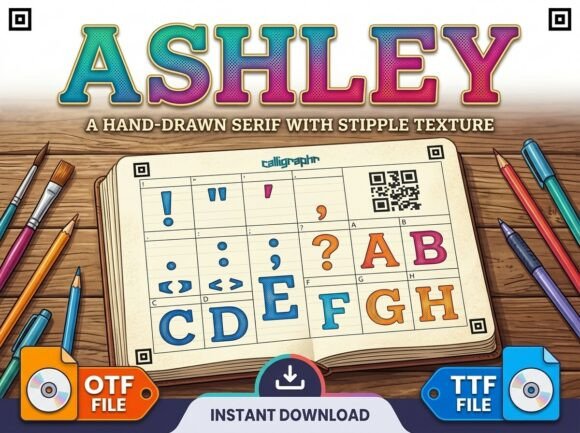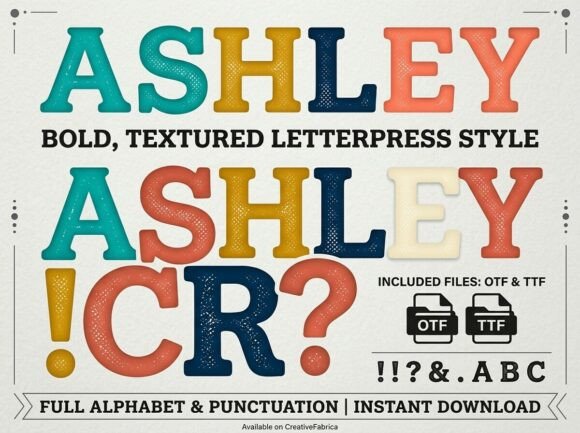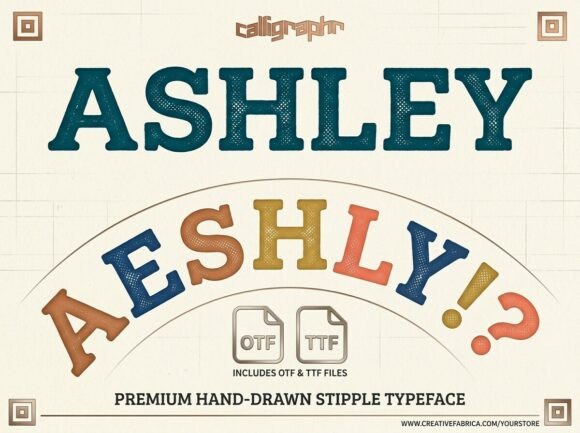
Ashley Font: Elevate Your Designs with a Stunning Decorative Display Font
In the world of typography, a font can make or break a design. If you’re a creator looking to make a statement, Ashley Font is here to revolutionize your visual projects. This decorative display font is crafted to grab attention, featuring unique artistic elements and a strong visual personality that sets it apart from the ordinary.
Unleash Your Creativity with Ashley Font
Ashley Font is perfect for designers, crafters, and artists who want to add a touch of elegance and sophistication to their work. With its intricate details and creative letterforms, this font is ideal for high-impact designs where typography takes center stage. Whether you’re designing a modern poster, a unique brand identity, or eye-catching social media content, Ashley Font adds an instant “wow” factor to any project.
This versatile font can be used in a variety of design applications, including:
• Poster Design: Create headlines that people can’t look away from. Ashley Font’s bold and artistic style makes it perfect for posters, flyers, and brochures.
• Branding & Logos: Build a unique identity for creative businesses. This font is ideal for logos, business cards, and letterheads.
• Apparel & Merch: Perfect for T-shirts, hoodies, tote bag designs, and other merchandise.
• Social Media: Make your quotes and announcements stand out in the feed. Use Ashley Font to create engaging social media content.
• Packaging: Give your products a premium feel with custom packaging designs that showcase your brand’s personality.
Key Features of Ashley Font
Ashley Font boasts several key features that make it a standout choice for designers:
• Unique Artistic Elements: Each letterform is carefully crafted with intricate details that add a touch of sophistication to your designs.
• Strong Visual Personality: This font has a bold and confident style that’s perfect for making a statement.
• Professional and Polished Finish: Ashley Font maintains a high level of professionalism, making it suitable for a wide range of design applications.
Why Choose Ashley Font?
In a sea of generic fonts, Ashley Font offers a refreshing alternative. Here are just a few reasons why designers and crafters love this font:
• Adds Visual Impact: Ashley Font is designed to grab attention and make a lasting impression.
• Versatile: Use this font in a variety of design applications, from posters to packaging.
Ashley Font is a game-changer for designers and crafters looking to elevate their visual projects. With its unique artistic elements, strong visual personality, and professional finish, this font is perfect for creating high-impact designs that make a statement. Whether you’re designing a modern poster, a unique brand identity, or eye-catching social media content, Ashley Font is the perfect choice. So why settle for ordinary typography when you can make a statement with Ashley Font?
Get Ready to Make a Statement with Ashley Font